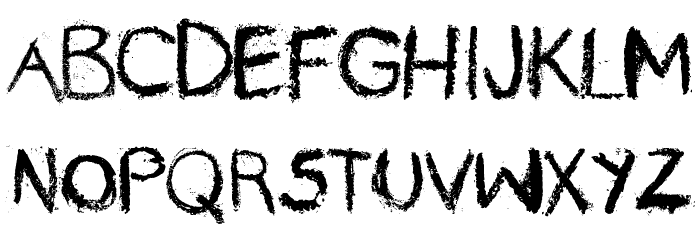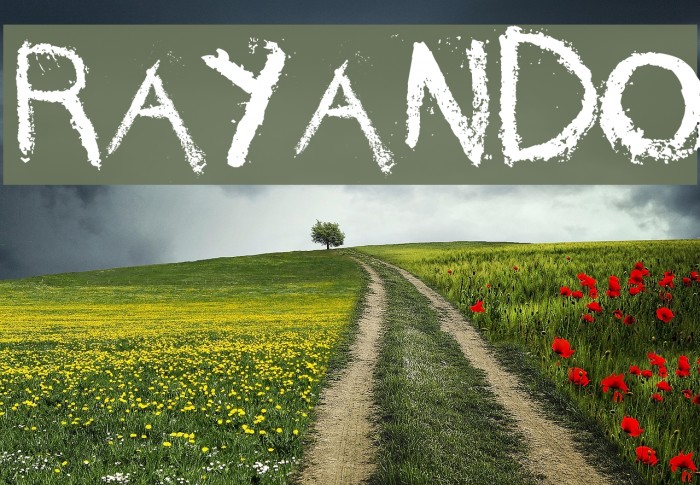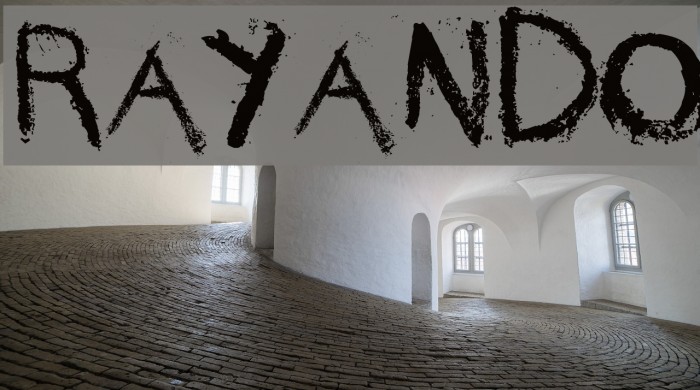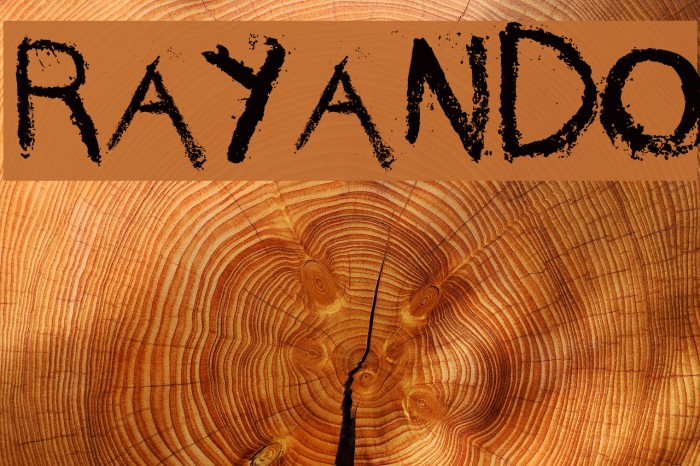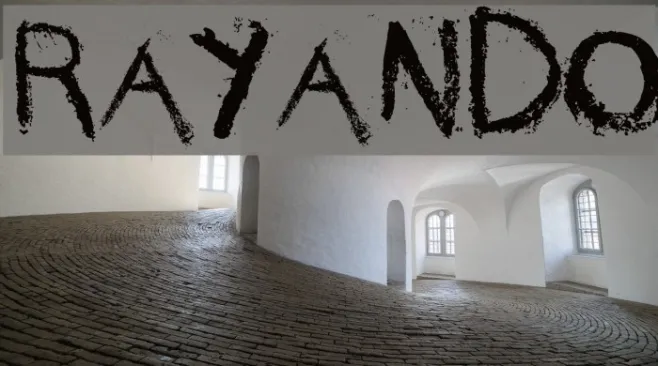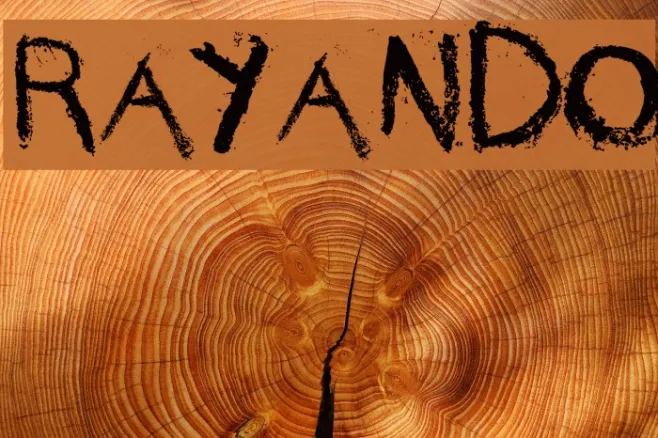
rayando Font
This font features a rough, textured appearance reminiscent of chalk or crayon on a rough surface. The characters have an uneven, hand-drawn quality that adds a sense of authenticity and rawness. Each letter is distinct, with varying thickness and a slightly irregular baseline, contributing to its organic feel. The uppercase and lowercase letters maintain a consistent style, while the numbers and special characters follow the same textured pattern. This font is ideal for projects that require a handmade or artistic touch, such as posters, album covers, or creative branding.
A textured, hand-drawn font with a chalk-like appearance.
- Proposed Projects: Posters, album covers, creative branding, artistic projects.
- Overall Style: Artistic, Raw, Textured
- Use Case: Headlines, Artistic projects, Creative branding